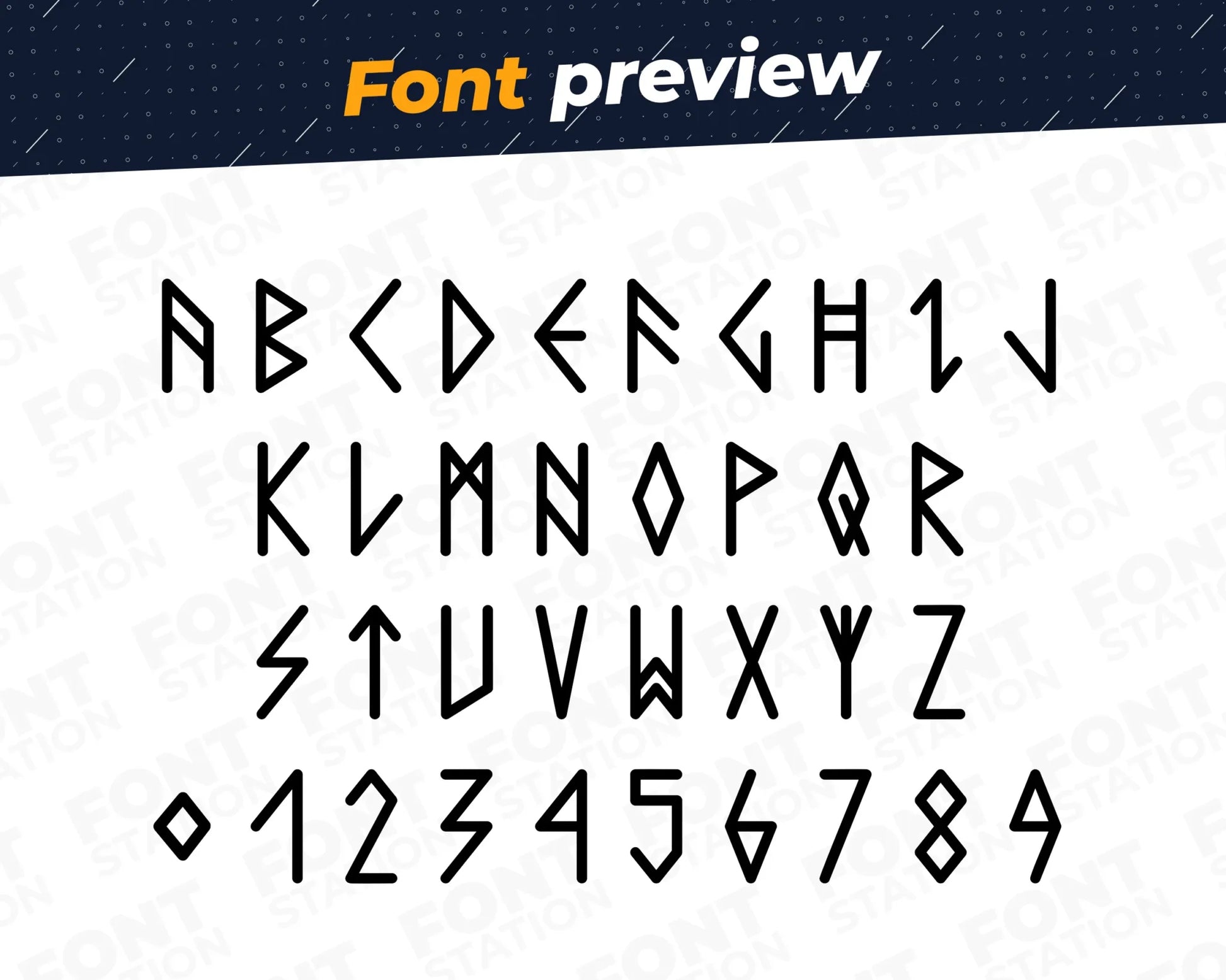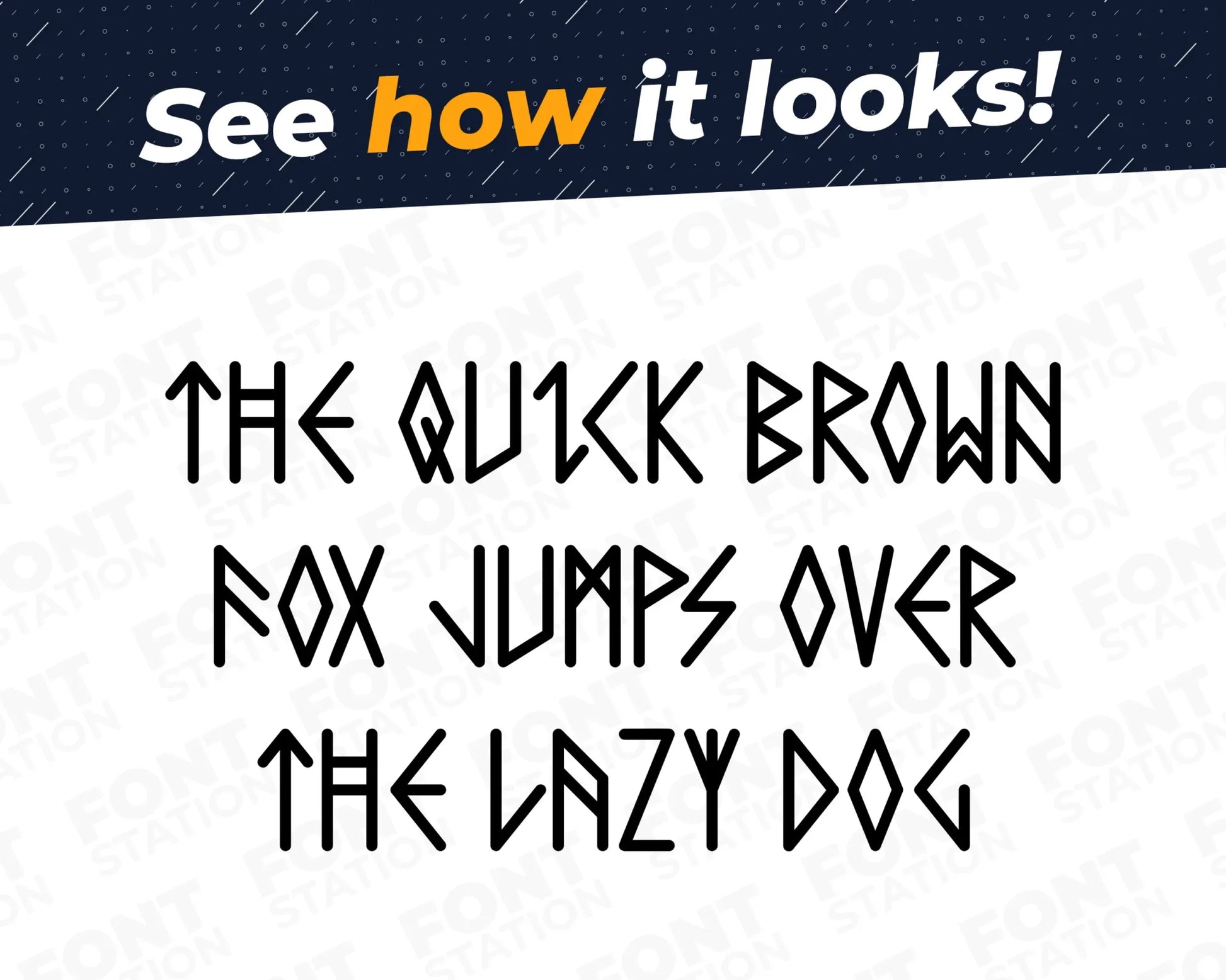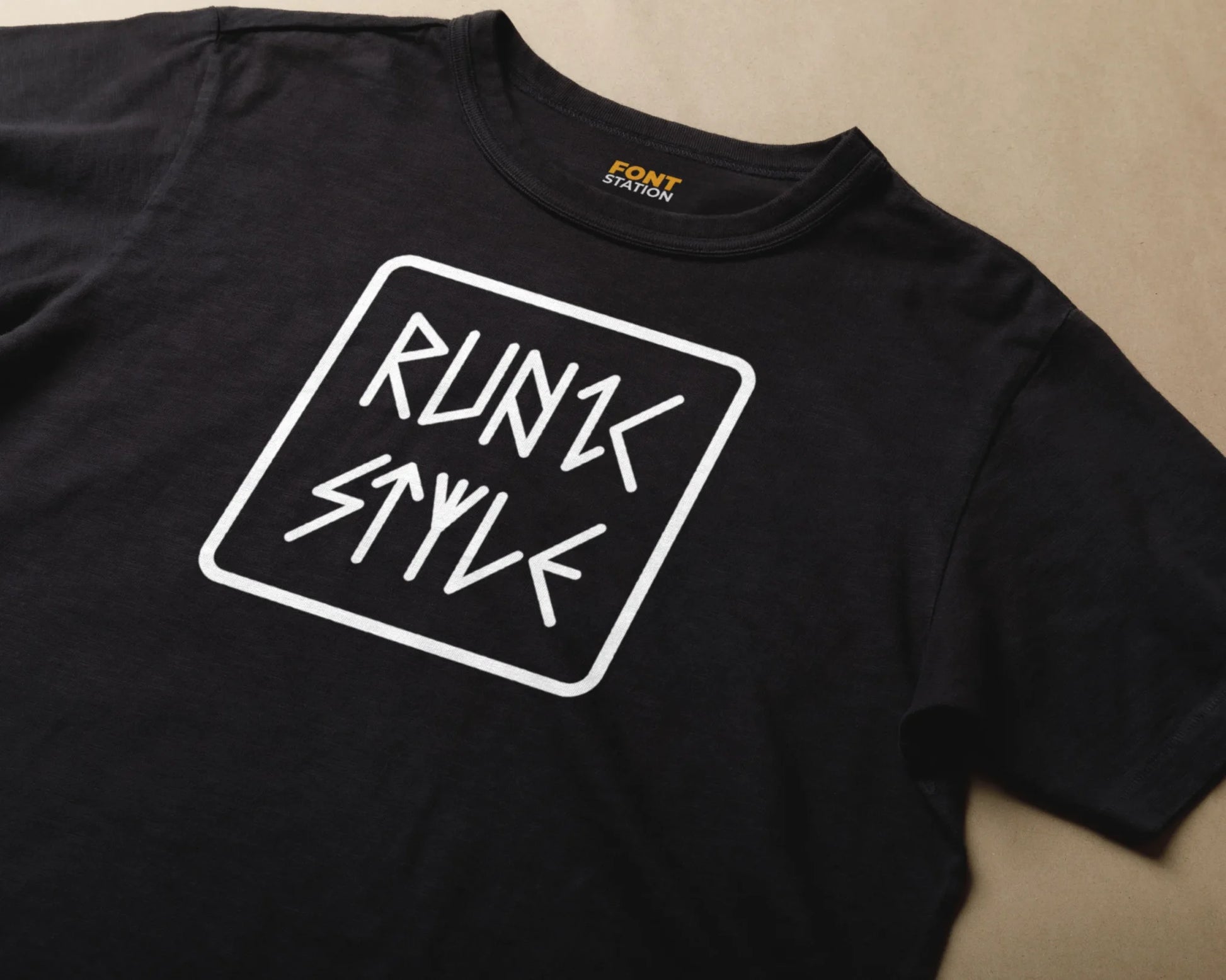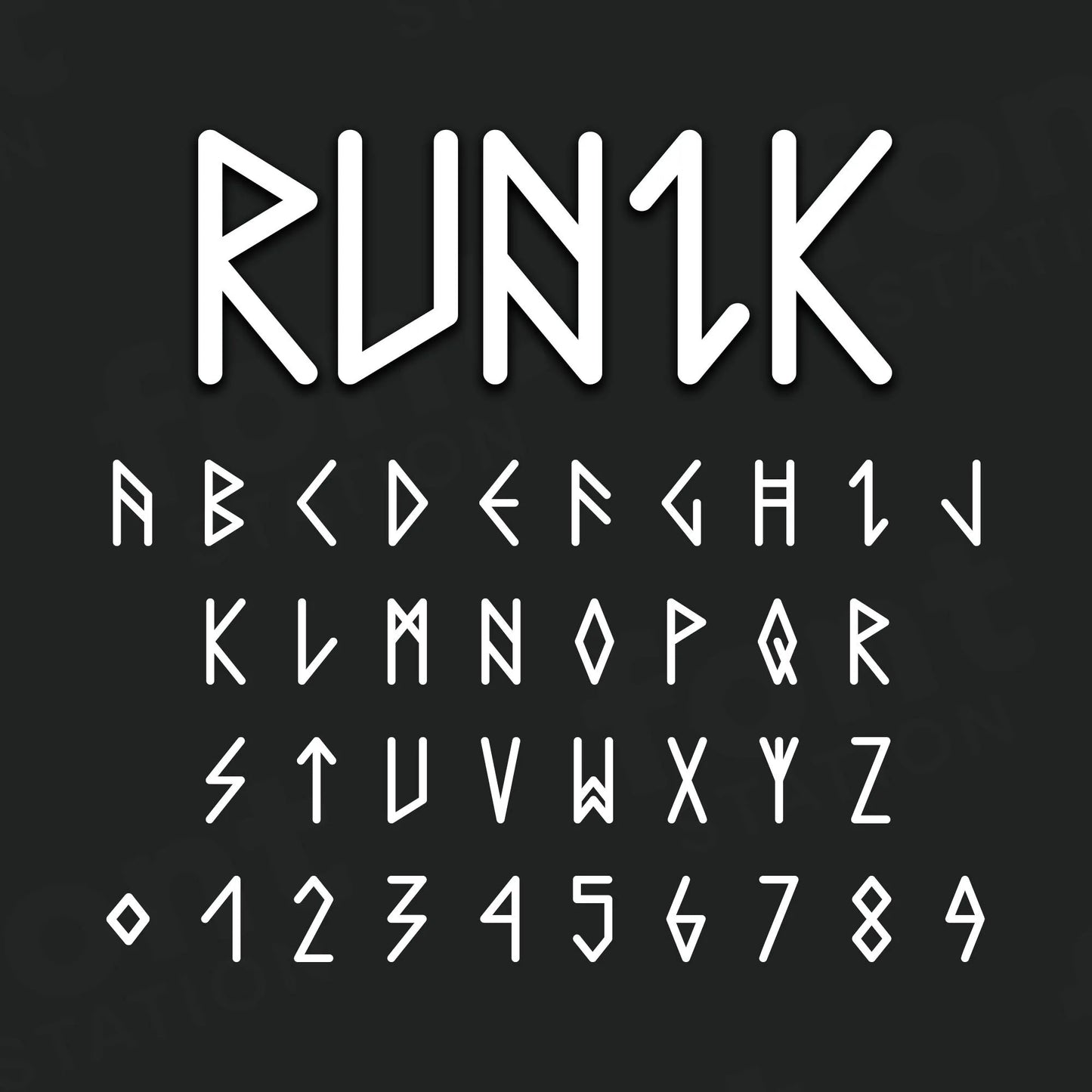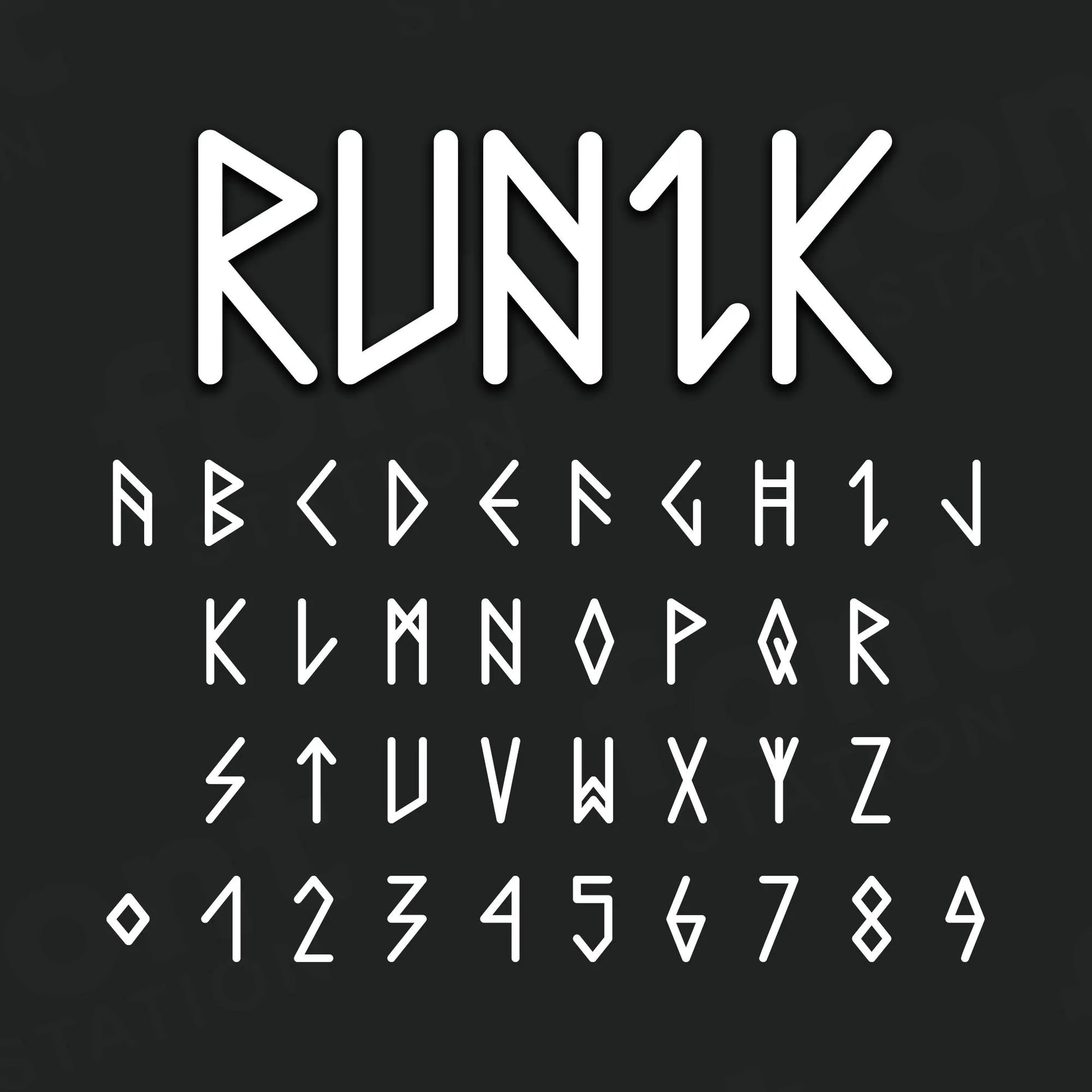
Runic Style Font
Our Viking Runes typeface, inspired from Runic Style font
Grab your computer, tablet or other device and start creating right now with our Runic Style font letters! Our Viking Runes typography is inspired from Runic Style font, making it ideal for various digital creations (logo, word...), sublimation, cake toppers, stickers, event decorations, and more.